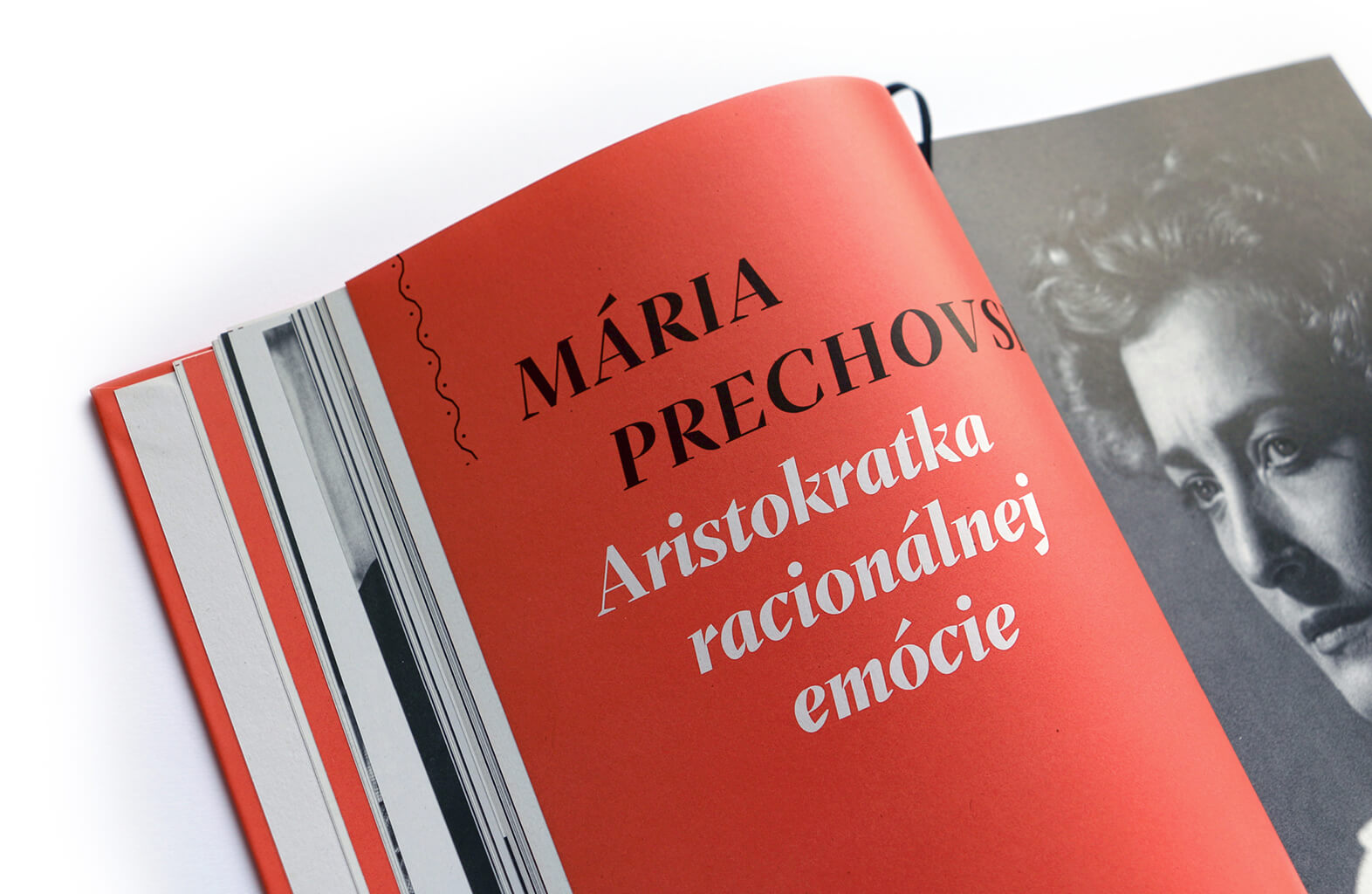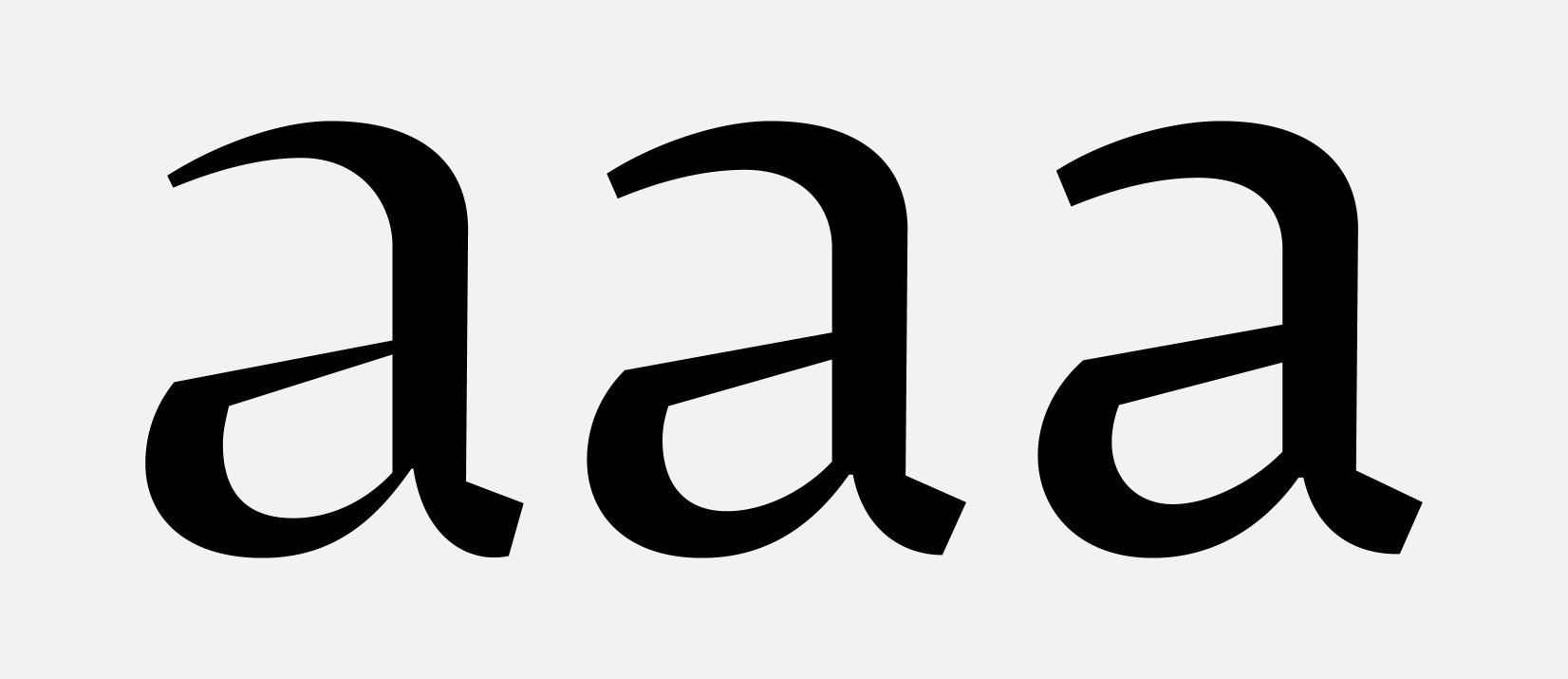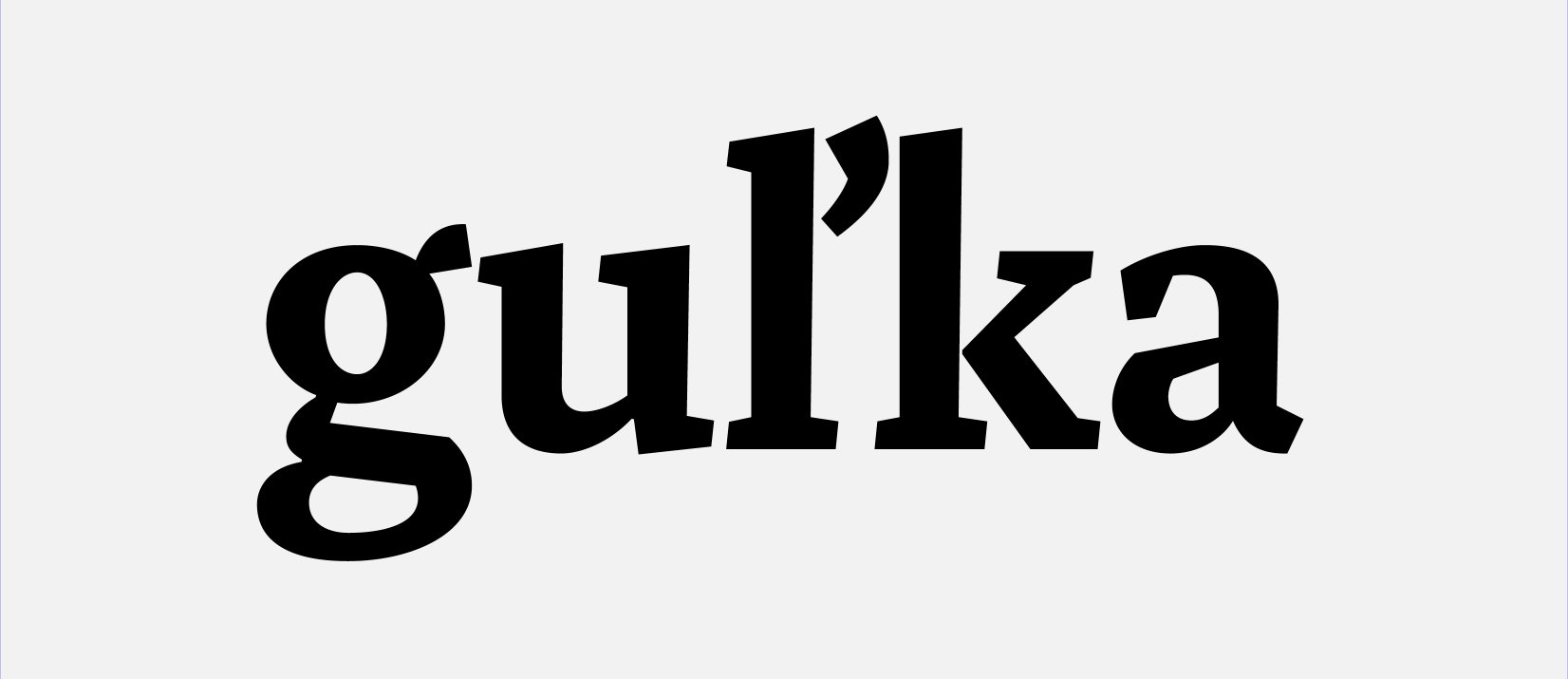
Fazeta
3 optical variants (Display, Text and Caption) guarantee optimal results in all text sizes.
Straight lines set by different angles create a striking dynamic effect in text.
If vertical caron follows letter with ascender it have automatically cutted serif because better spacing and improve legibility.
x-height is relative small – longer ascenders and descenders give into typeface an elegant impression.
Stylistic set 01 adds serifs and a more traditional feeling.
Set of discretionary ligatures. These certainly make your text special.
Fazeta is a type family uses the optical sections. It is a modern static antiqua (it has not obliqued axis, serifs without slopes) but distant from ceremonious and rigid look of this type category. Inspiration was typeproduction from Czechoslovakia 60’s – J. Týfa, V. Preissig, J. Linzboth or A. Krátky. Common factor of this typefaces is vivid and sharp design with stable serifs, tend to rational construction rather than calligraphy and some sophisticated small details vitalized general impression. In this case are facetted asymmetrical arches (some abbreviation). Specific of this design is a short arch of glyph “f” that allows comfortable typesetting without ligatures obligation. In character set are besides classical ligatures discretionary ligatures for special occasions. Another surprising element is that all vertical strokes are slightly expanded upwards. These details become invisible in small text but in larger sizes impressed the eye and fix attention to headline. For traditional text feeling are here alternative glyphs “a, c, f, j, k, r, y, K, R” terminated with typical serif. Typeface is graded by optical size into 3 variants – caption (robust structure with low contrast, suitable for size 6 – 9 pt), text (medium contrast, suitable for ordinary text about 10 pt) and display (high contrast and subtle details for 20 pt and higher). Every variant has 5 weights (light, regular, medium, bold and black) with italics. Typeface is with their naked cold expression suitable for neutral text without emotional feelings. In contrast with most antique typefaces this is intended for modern glossy white paper where crisp details can excelled. Every style contains 1140 glyphs, between them original small capitals, various digits, fractions, indexes, matematical symbols, arrows, borders and many alternative glyphs.